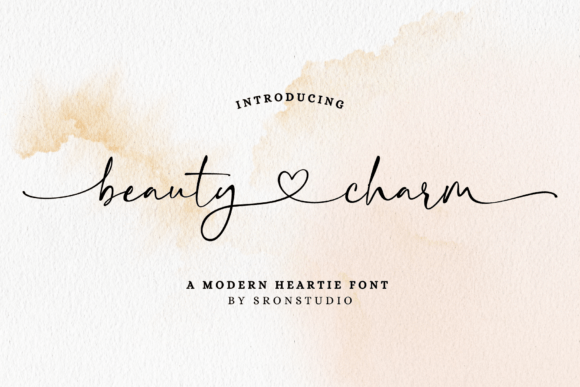
The Perfect Font for Expressing Love and Affection
Have you ever been typing out a love letter to your partner, and the words just flow effortlessly onto the page? The emotions pour out, and the words become a reflection of the love you share. In that moment, the right font can make all the difference. That’s where “Beauty Charm Font” comes in – a charming romantic font designed to evoke emotions of warmth and tenderness.
With its delicate curves and elegant letterforms, “Beauty Charm Font” is the perfect choice for projects that celebrate love, relationships, and special occasions. Whether you’re creating wedding invitations, love letters, or any project that requires a romantic touch, this font will beautifully convey your message. As a designer, you’ll appreciate the versatility of “Beauty Charm Font” – it’s a valuable addition to your toolkit that will help you connect with your audience on a deeper level.
Beauty Charm Font Key Features
- Unique Characteristics: The font features intricate, hand-drawn designs with elegant flourishes and delicate details, making it perfect for creating beautiful and sophisticated typography.
- Font Style: Script, Calligraphy, Elegant
Design Review: Beauty Charm Font
Overall, I think the Beauty Charm Font is a cute and playful addition to any design project. ✨ The font’s mix of cursive and script elements gives it a unique feel that’s perfect for beauty and fashion brands. The character set is also quite extensive, making it easy to use for a variety of applications.
- ✨ The font’s playful and feminine vibe makes it perfect for beauty and fashion brands.
- ✨ The character set is extensive, making it easy to use for a variety of applications.
- ✨ The font is highly customizable, with a range of styles and sizes to choose from.
- ⚠️ The font may not be suitable for formal or corporate designs, as it’s a bit too playful for those types of projects.
- ⚠️ Some of the characters may not be as clear or legible at smaller sizes, which could be a problem for certain designs.
In terms of overall impression, I think the Beauty Charm Font is a solid choice for designers looking for a fun and feminine font. However, it’s not perfect, and designers should be aware of its limitations before using it. With some careful consideration and planning, though, it could be a great addition to any design project.
The Beauty Charm Font is ideal for:
- Beauty and wellness branding
- Fashion and lifestyle design
- Any project requiring a feminine and elegant touch
Great Vibes Font is a modern, elegant script font suitable for headings and titles. It’s ideal for designs that require a touch of sophistication and playfulness. Great Vibes Font has a more refined look compared to Beauty Charm Font, making it perfect for high-end brands or luxury products.
Comparison: While both fonts have a cursive feel, Great Vibes Font is more polished and sophisticated, whereas Beauty Charm Font has a more whimsical and playful touch.
Pacifico Font is a beautiful, handwritten font that works well for headings, titles, and body text. It’s ideal for designs that require a relaxed, beachy vibe. Pacifico Font has a more laid-back feel compared to Beauty Charm Font, making it perfect for outdoor or summer-themed projects.
Comparison: While both fonts have a handwritten feel, Pacifico Font is more casual and laid-back, whereas Beauty Charm Font has a more elegant and refined touch.
Can I customize the Beauty Charm Font for my specific design needs?